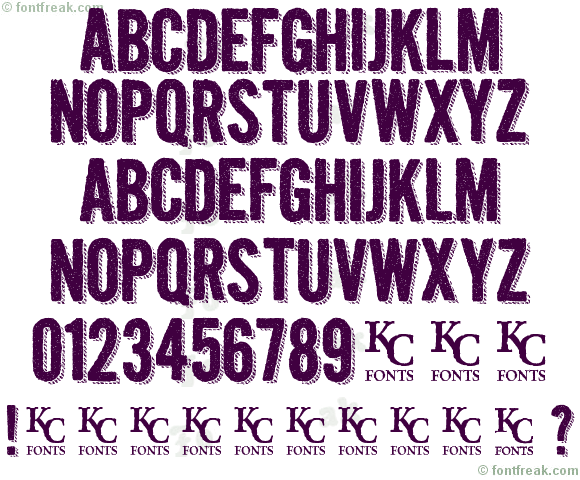
Kraft Nine
About Kraft Nine
Kraft Nine, designed by Kevin Christopher, is a striking display font that falls into the decorative category. Released in 2012, this freeware typeface is characterized by its bold, textured appearance, reminiscent of hand-drawn lettering. The font features a medium stroke weight with a slightly worn, gritty finish, which gives it an organic and artisanal feel. The letterforms are spaciously arranged, allowing for excellent readability while maintaining a vibrant visual presence.
This unique font is well-suited for a variety of creative applications. Its rustic charm makes it an excellent choice for wedding invitations, where it can evoke a sense of warmth and personal touch. Additionally, Kraft Nine shines in the realm of movie posters, lending a dramatic flair that captures attention. Small business owners in the food industry will find it ideal for restaurant menus, as it can effectively convey a casual yet sophisticated dining experience. Furthermore, content creators can utilize this font for social media graphics, ensuring their posts stand out with an engaging, handcrafted aesthetic.
The target audience for Kraft Nine includes graphic designers seeking to add a distinctive element to their projects, small business owners looking for a memorable branding solution, and content creators who want to enhance their visual storytelling. The font's flexible design allows it to complement a variety of themes, from rustic to modern.
What sets Kraft Nine apart is its ability to blend artistic flair with functionality. The textured finish and bold presence make it a versatile choice for anyone looking to infuse their work with personality. For those interested in this eye-catching typeface, a Kraft Nine font free download is available, inviting users to explore its unique charm in their own designs.